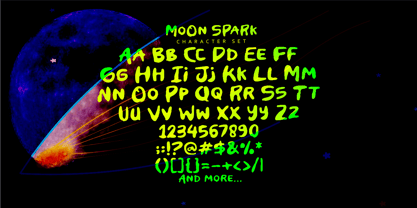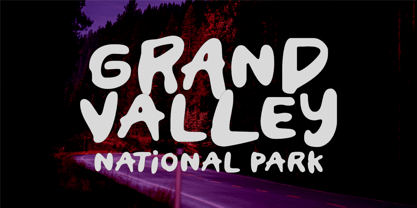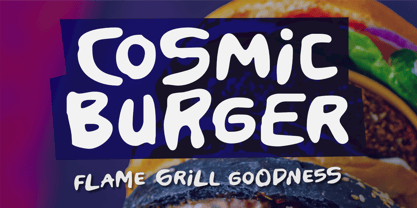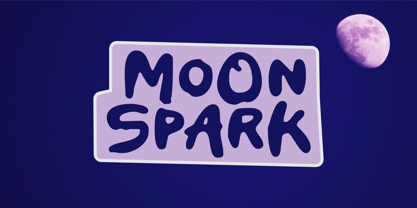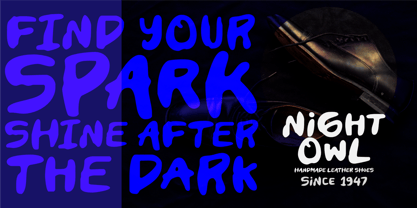
Moon Spark
von Olivetype
Die Schriftfamilie Moon Spark wurde von Nurul Hidayani entworfen und von Olivetype veröffentlicht. Moon Spark enthält 1 Stile. Mehr über diese Familie
Moon Spark is a bold handmade display font designed to bring warmth, character, and creative energy to every project. Built with carefully crafted letterforms and an authentic handcrafted feel, this font combines strong visual impact with playful personality, making it perfect for attention-grabbing headlines and memorable branding.
Its bold structure and organic details create a unique balance between modern creativity and handcrafted charm. Moon Spark works beautifully for logos, packaging, product labels, posters, apparel, signage, social media graphics, children's products, food branding, and lifestyle brands that want a distinctive and approachable look.
Whether you're designing for a creative business, a playful product line, an adventurous brand, or a standout marketing campaign, Moon Spark delivers a unique handmade aesthetic that helps your message shine with confidence and originality.
Designer: Nurul Hidayani
Foundry: Olivetype